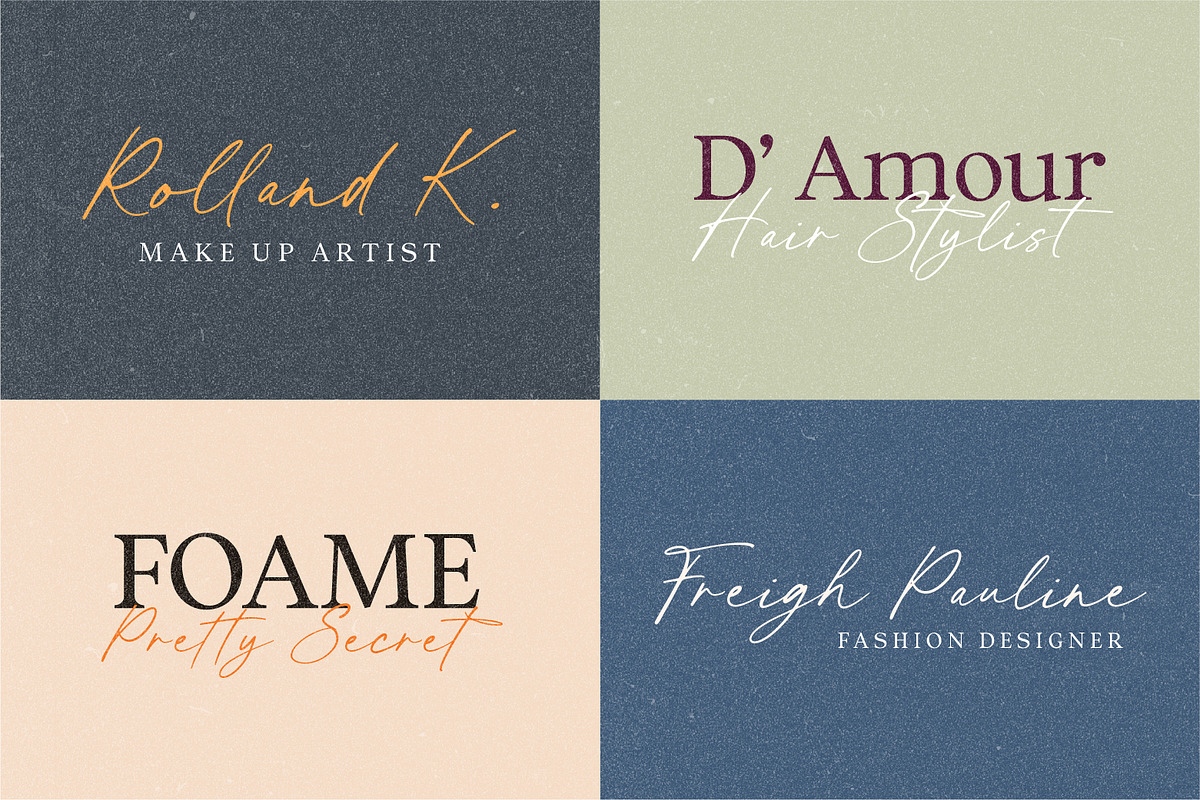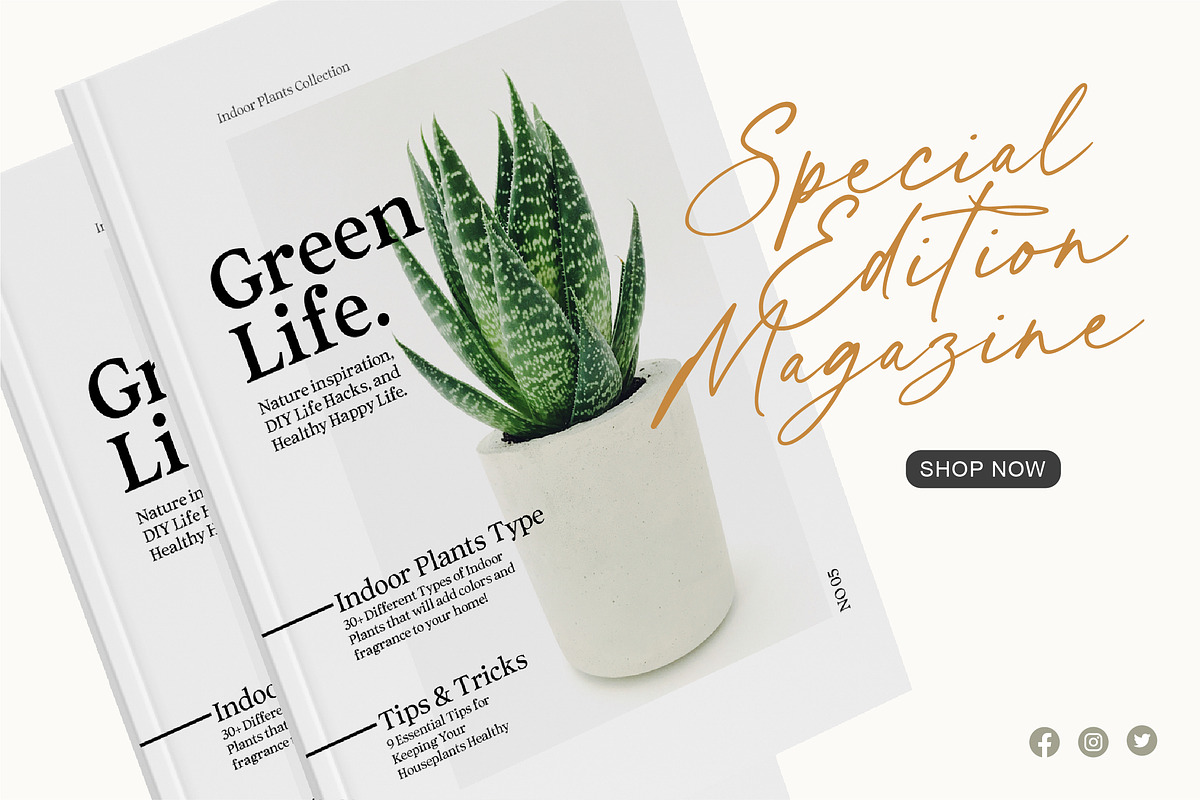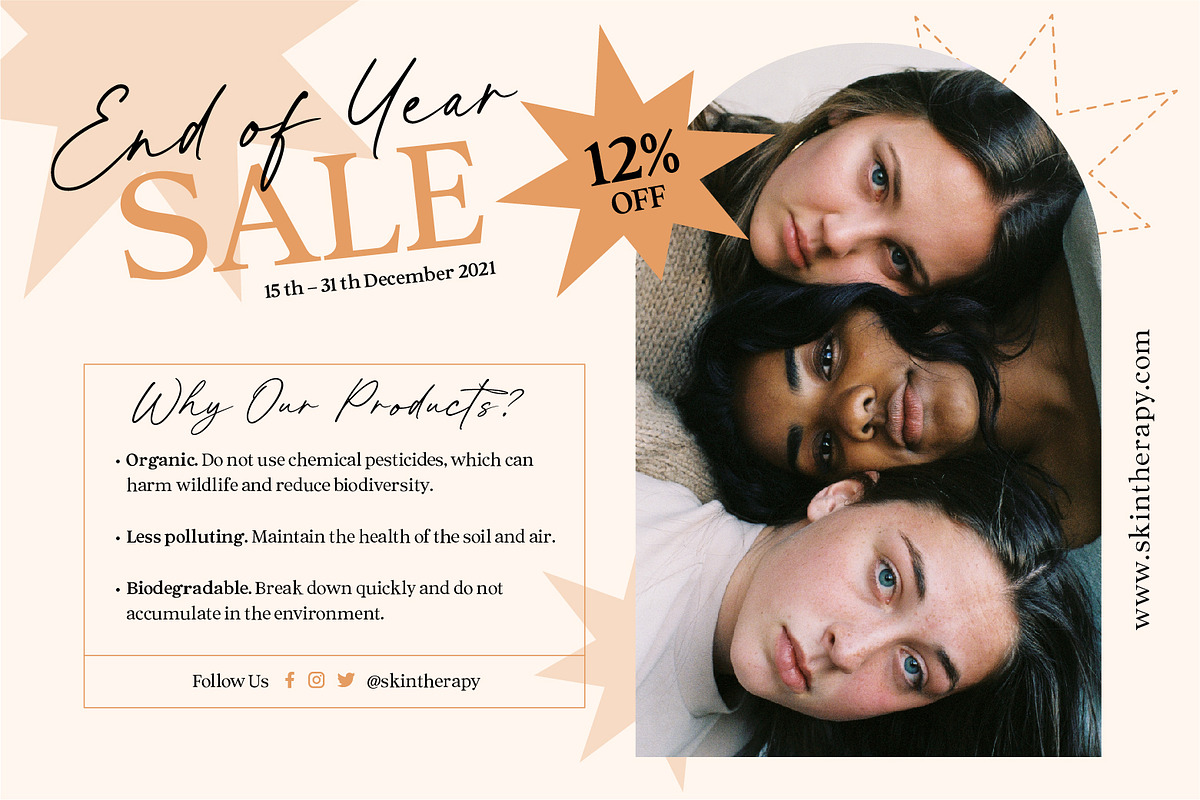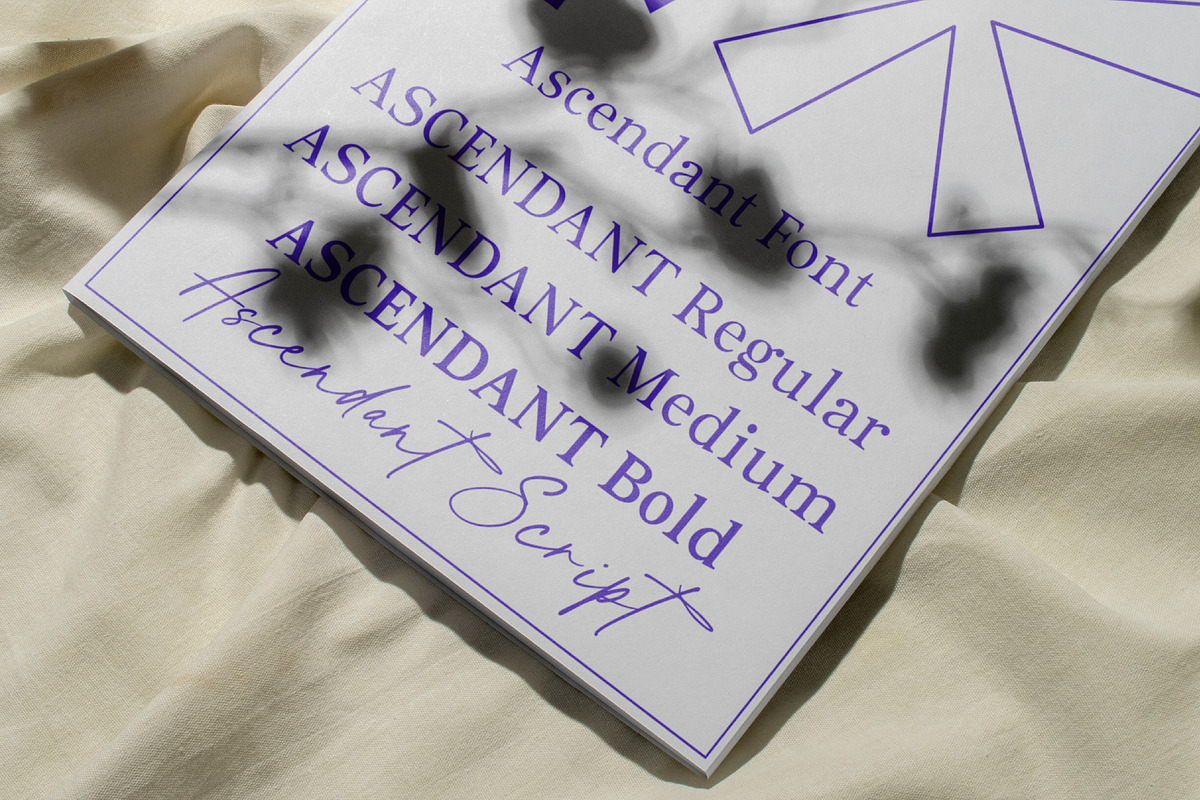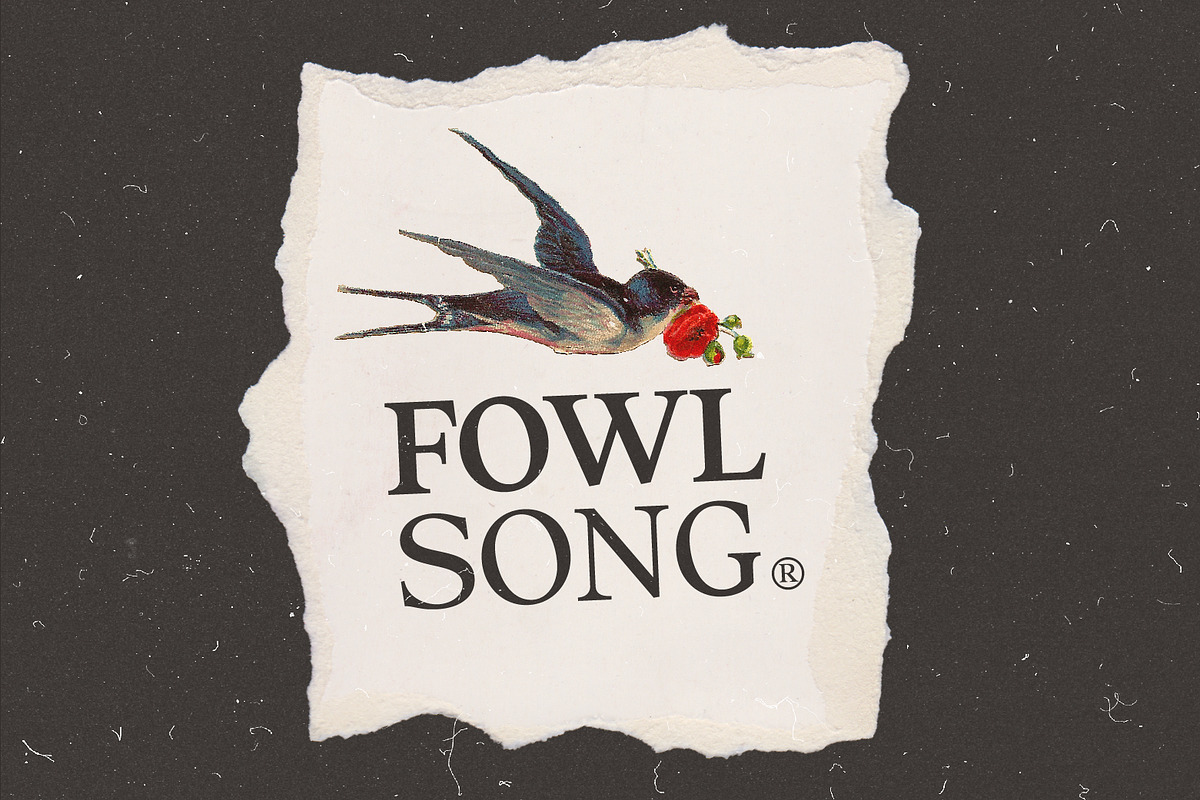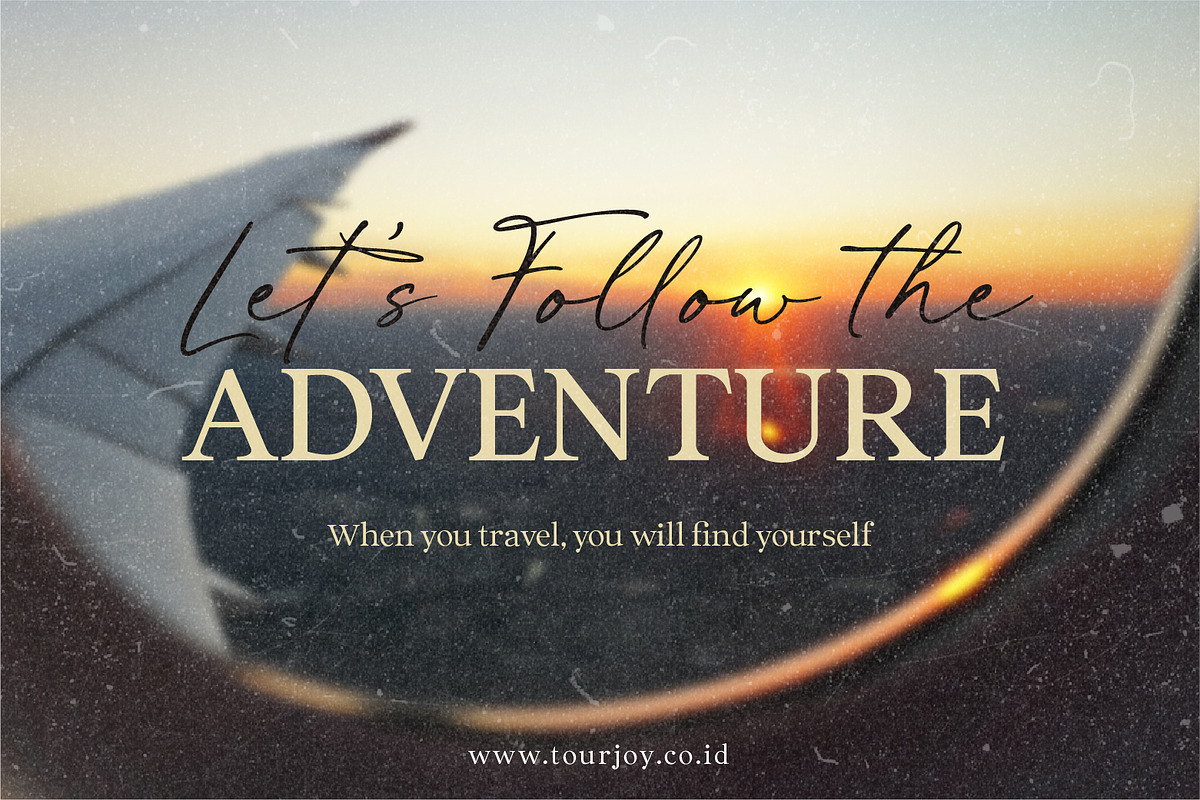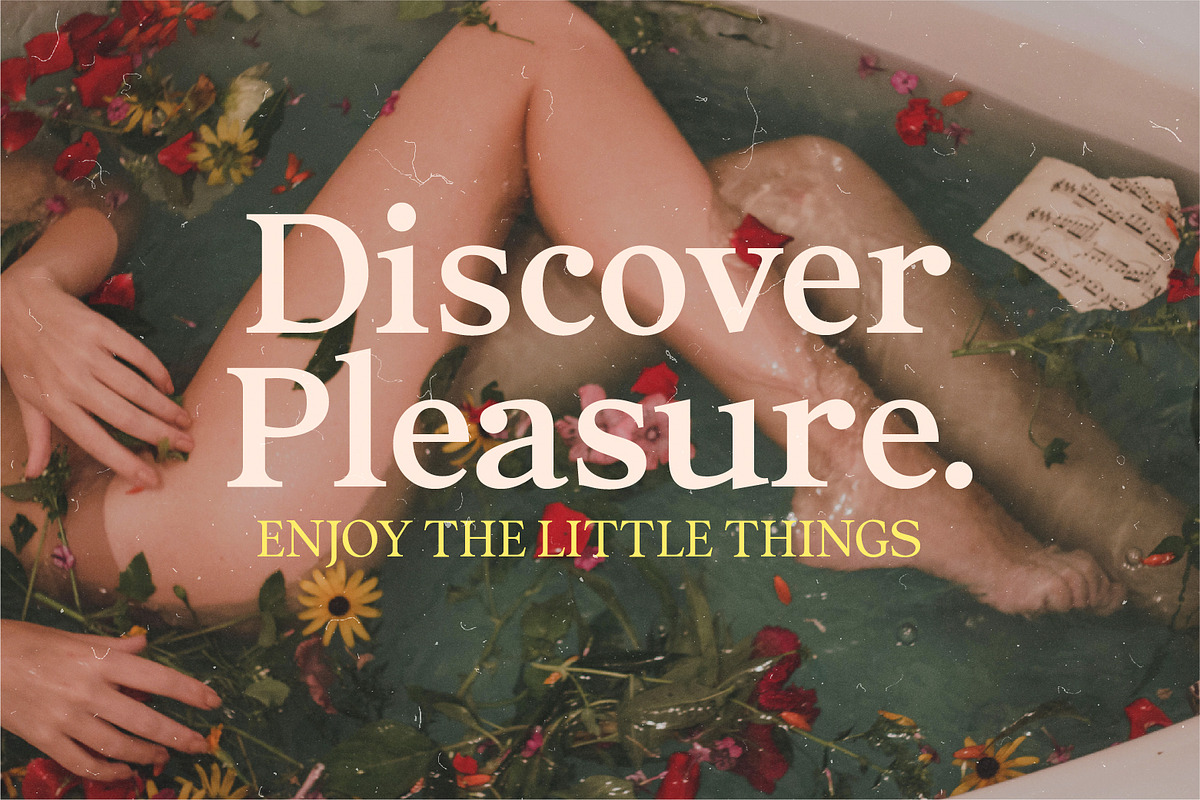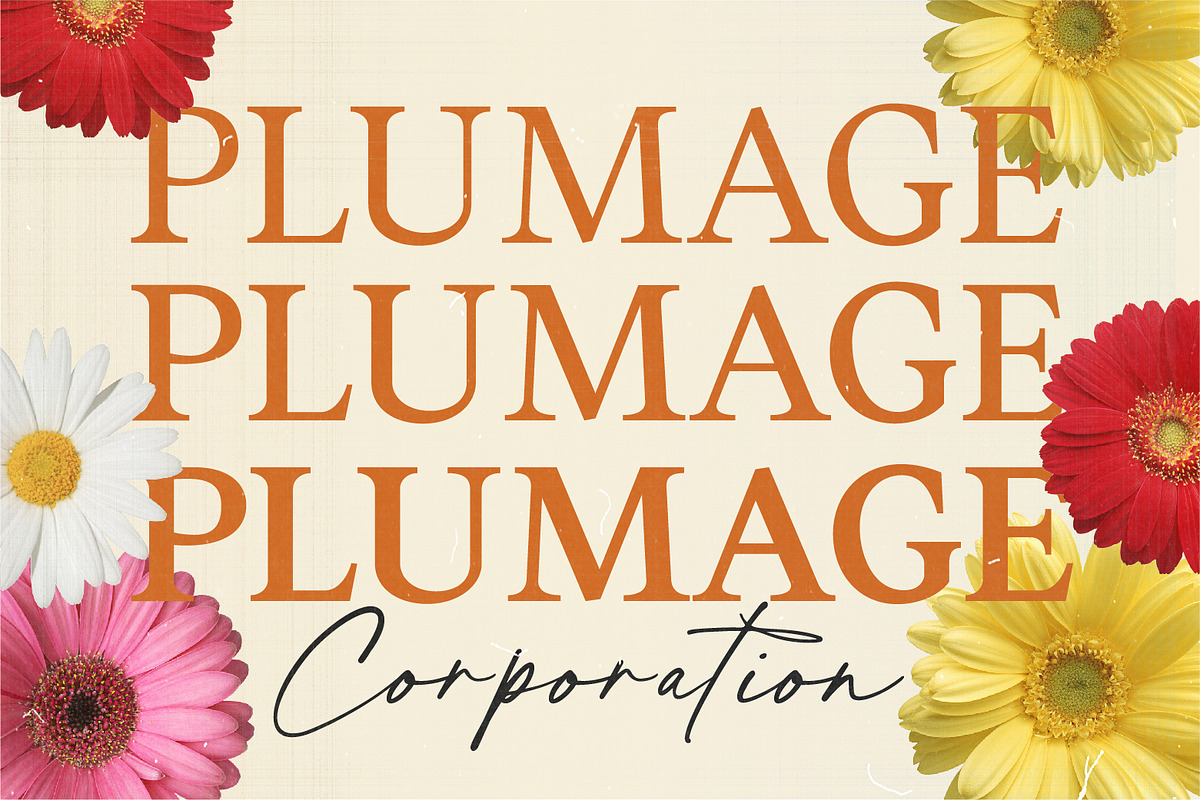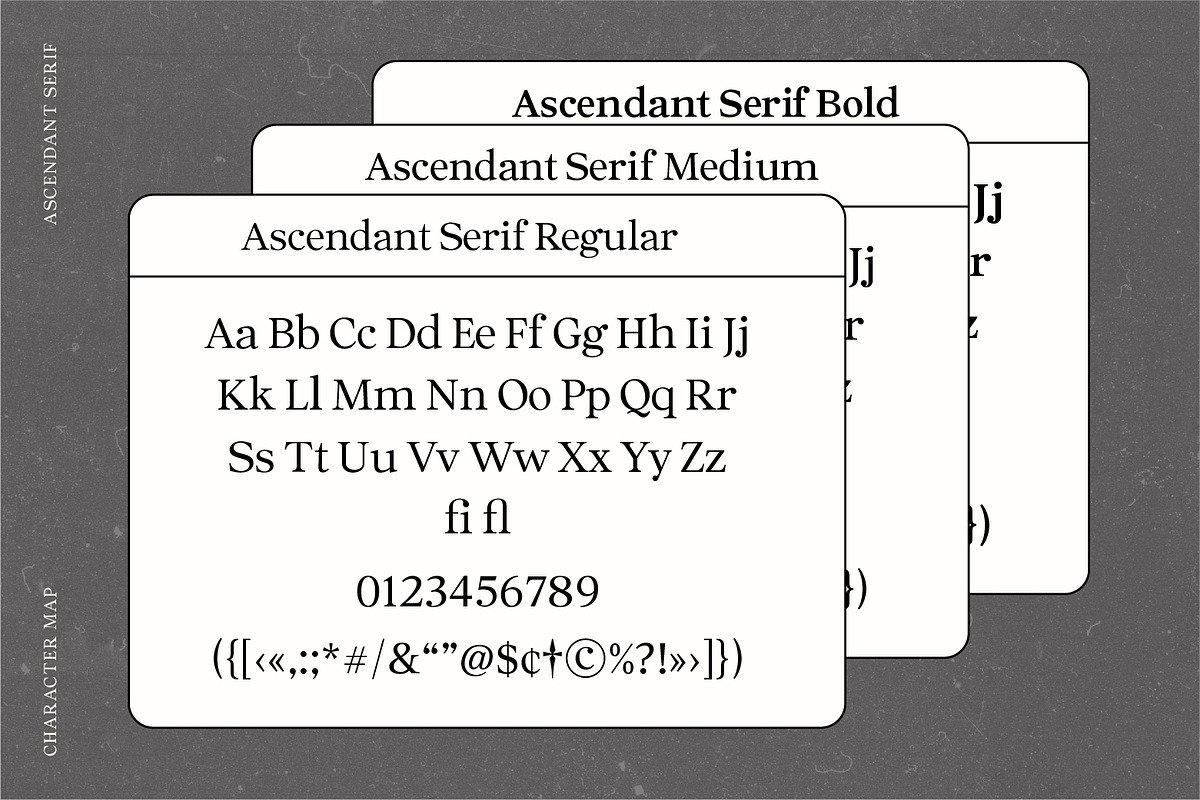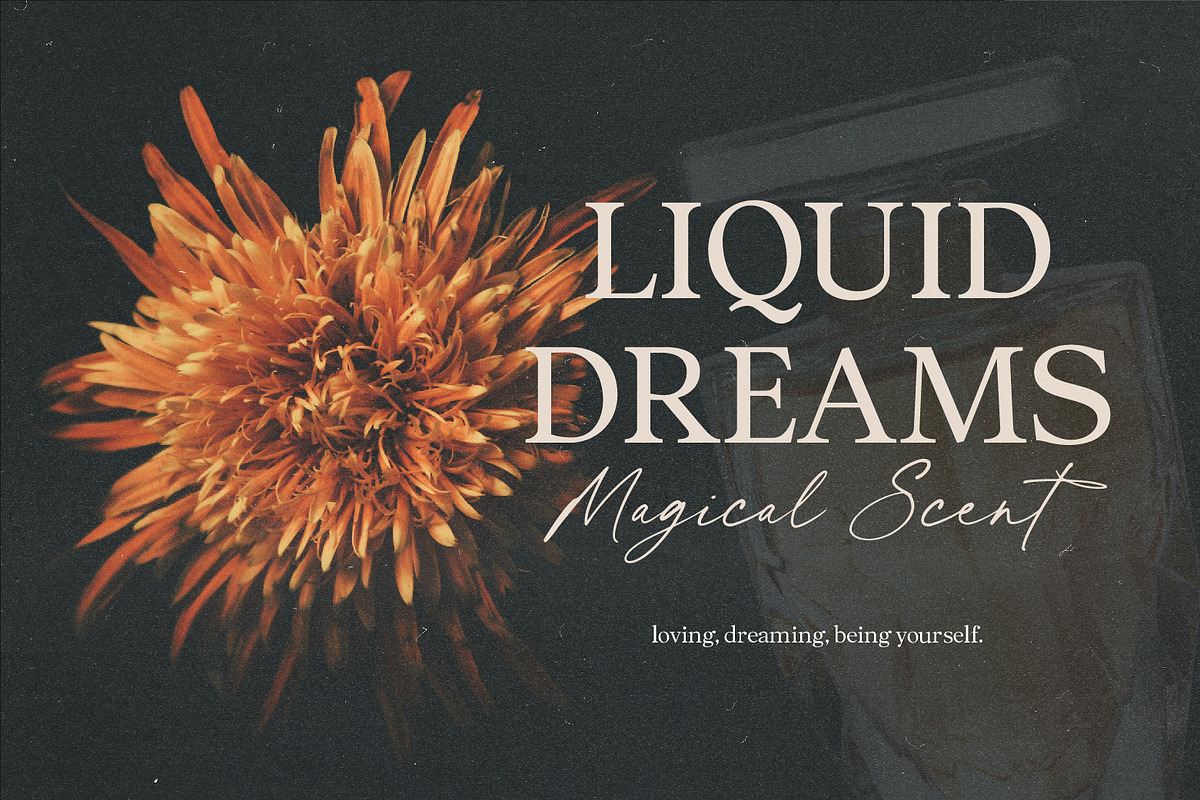
Ascendant | Font Duo
Ascendant is a font duo, with contemporary serif family font and script. It’s so versatile to mix and match. Perfect for branding, editorial design, logo, book, poster, magazine, and so on.
- Ascendant Serif font with full set of lowercase and uppercase letters, numerals and punctuation, multilingual characters, standard ligature.
- Ascendant Script font with full set of lowercase and uppercase letters, numerals and punctuation, multilingual characters, ligatures, and alternate.